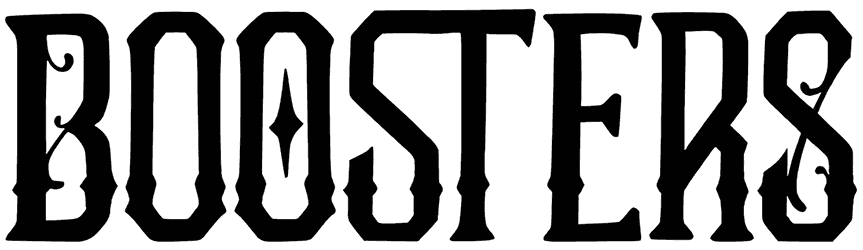
Boosters Font
Turn your words into a traditional yet smart design with Boosters, an approachable, high-quality retro font associated with pointy letters that give it a great point of high download. This whiskey font is an excellent choice for vintage publications, magazines, book covers, logotypes, and more.
Boosters vintage font is a typeface that is made all characters in uppercase. An excellent choice to add the right amount of retro touch. This typeface with artistic style looks very interesting for loads of different projects and promotions. A vintage font great all-in-one package for your logo, book cover, poster, t-shirt, branding, and advertisement needs.